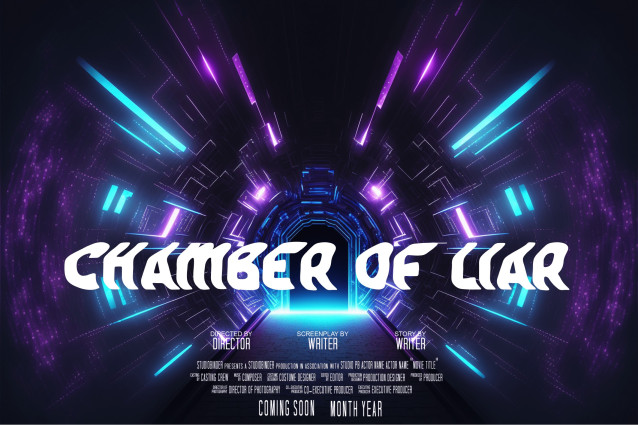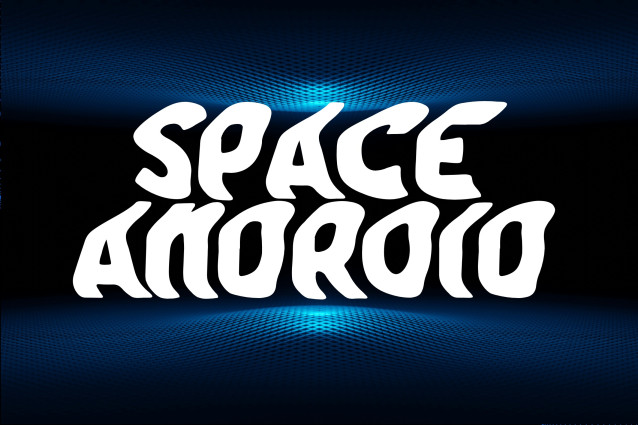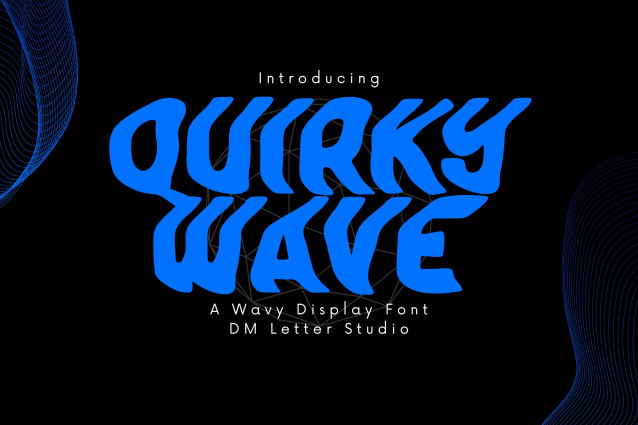
Quirky Wave Font
Quirky Wave Font is a lighthearted and dynamic font that brings a splash of fun to any design. Featuring wavy letterforms with a hand-drawn feel, this typeface is ideal for summer-themed projects, playful branding, kids’ designs, and bold creative expressions. Its flowing, offbeat style adds an energetic and carefree personality wherever it’s used.